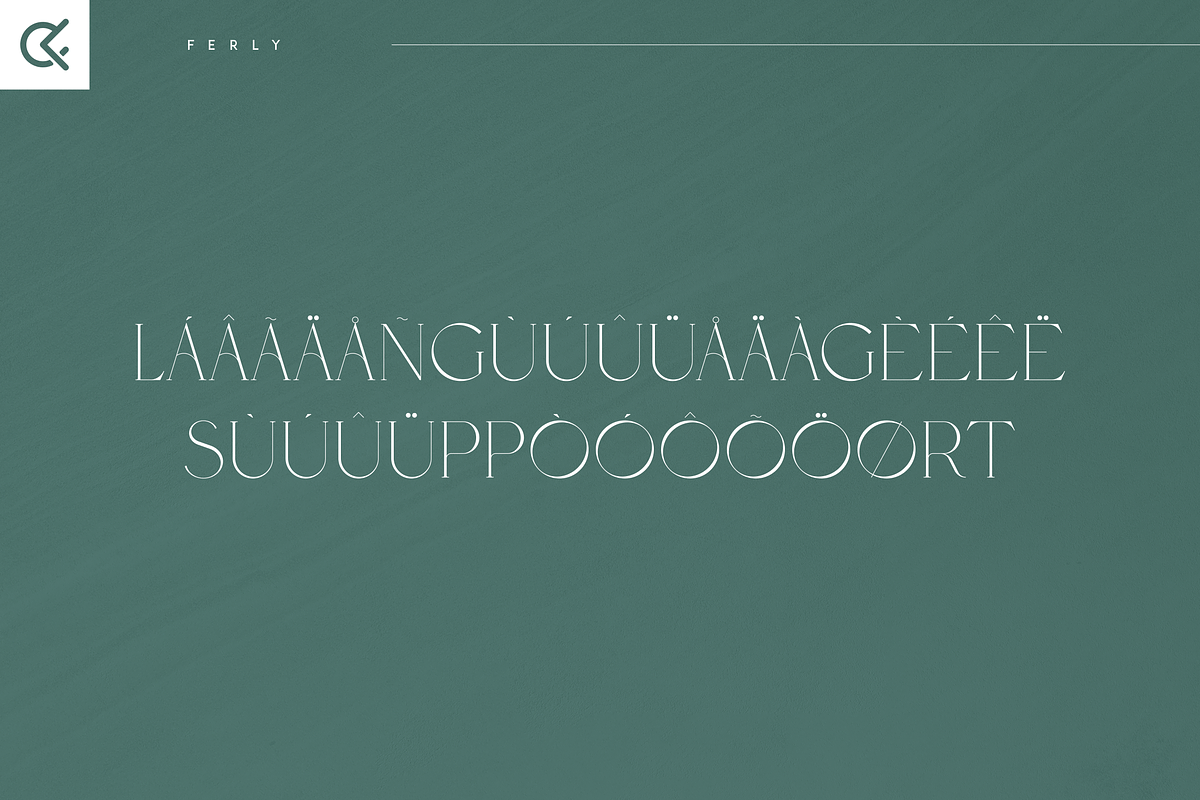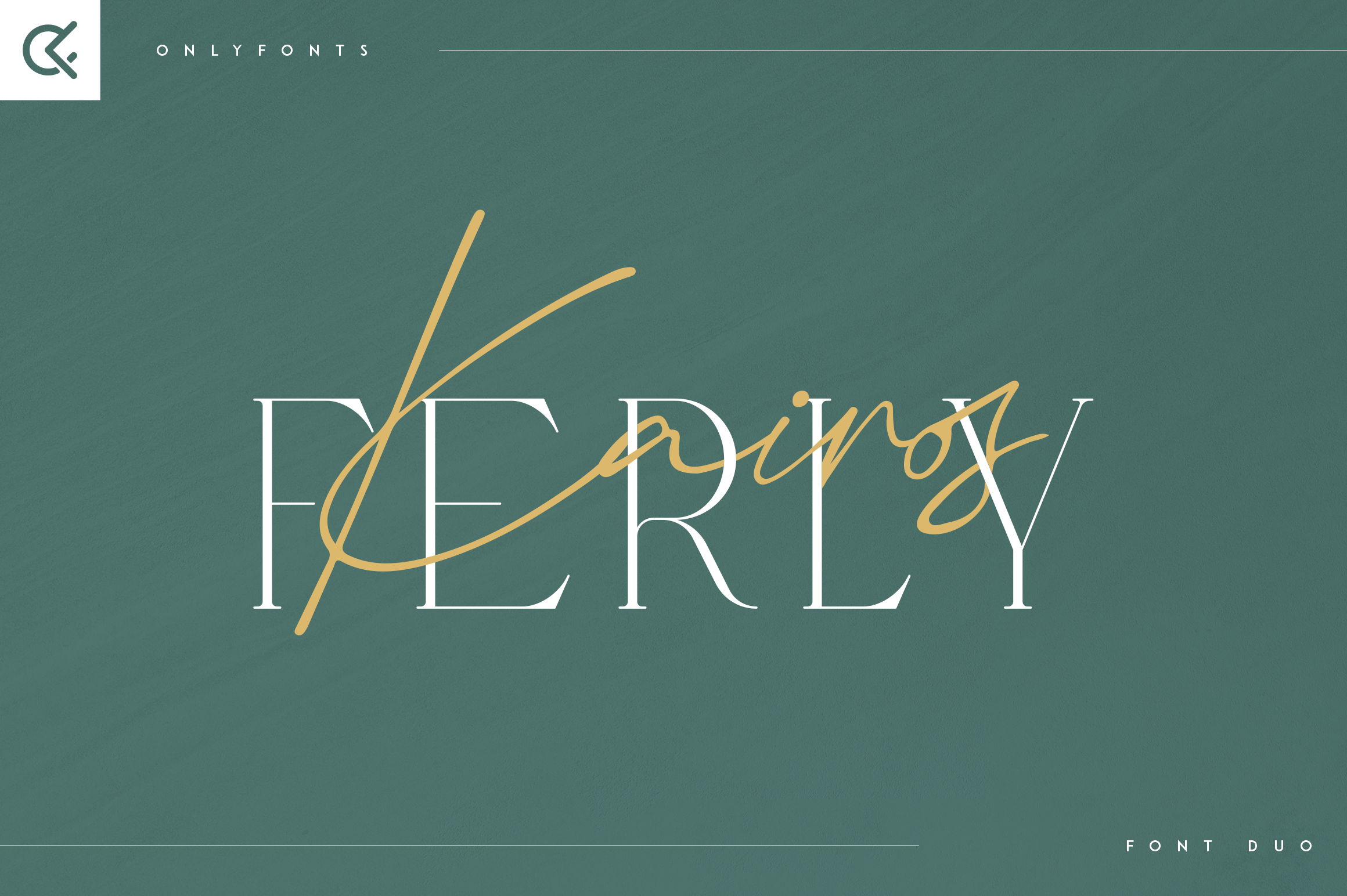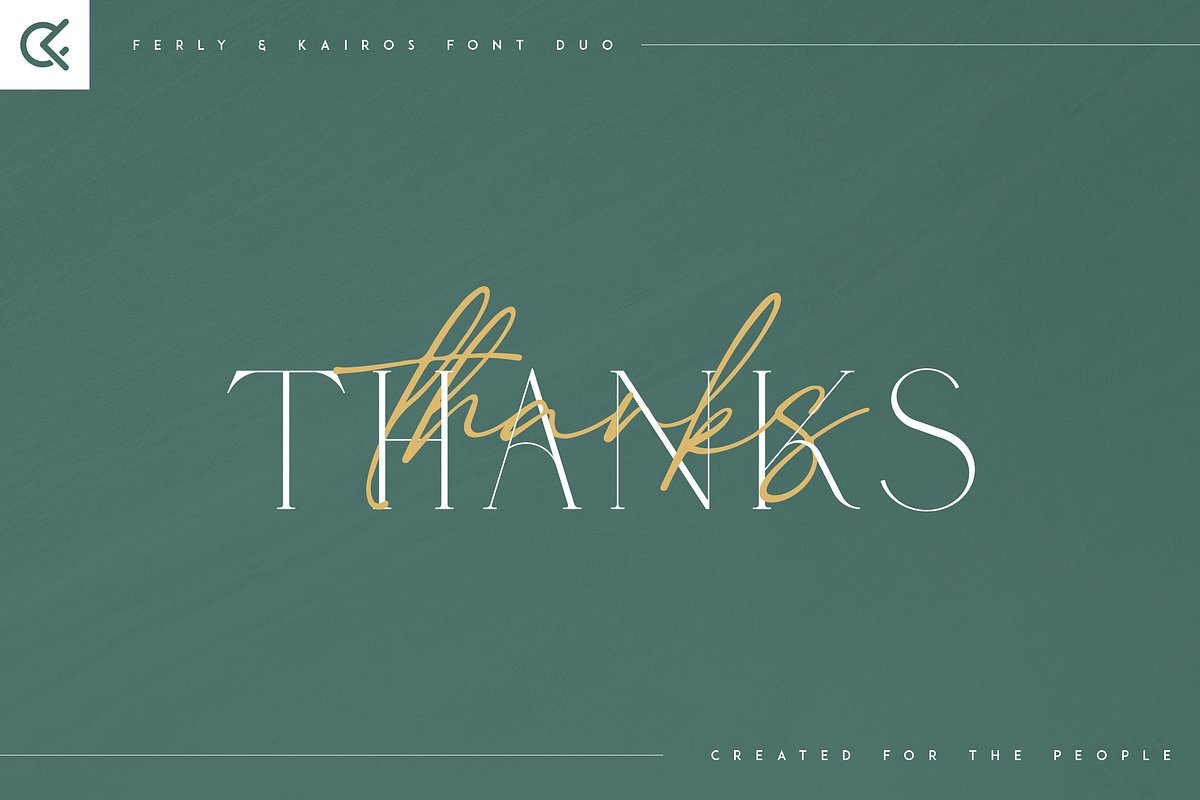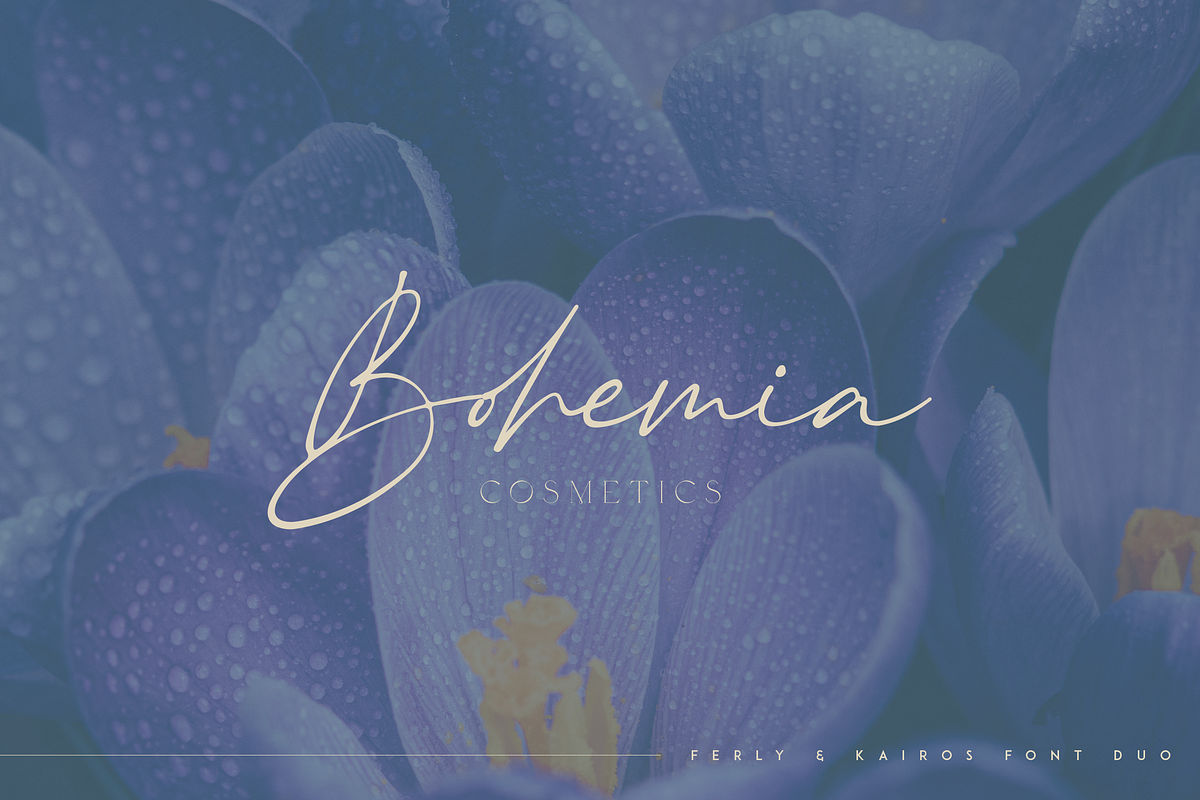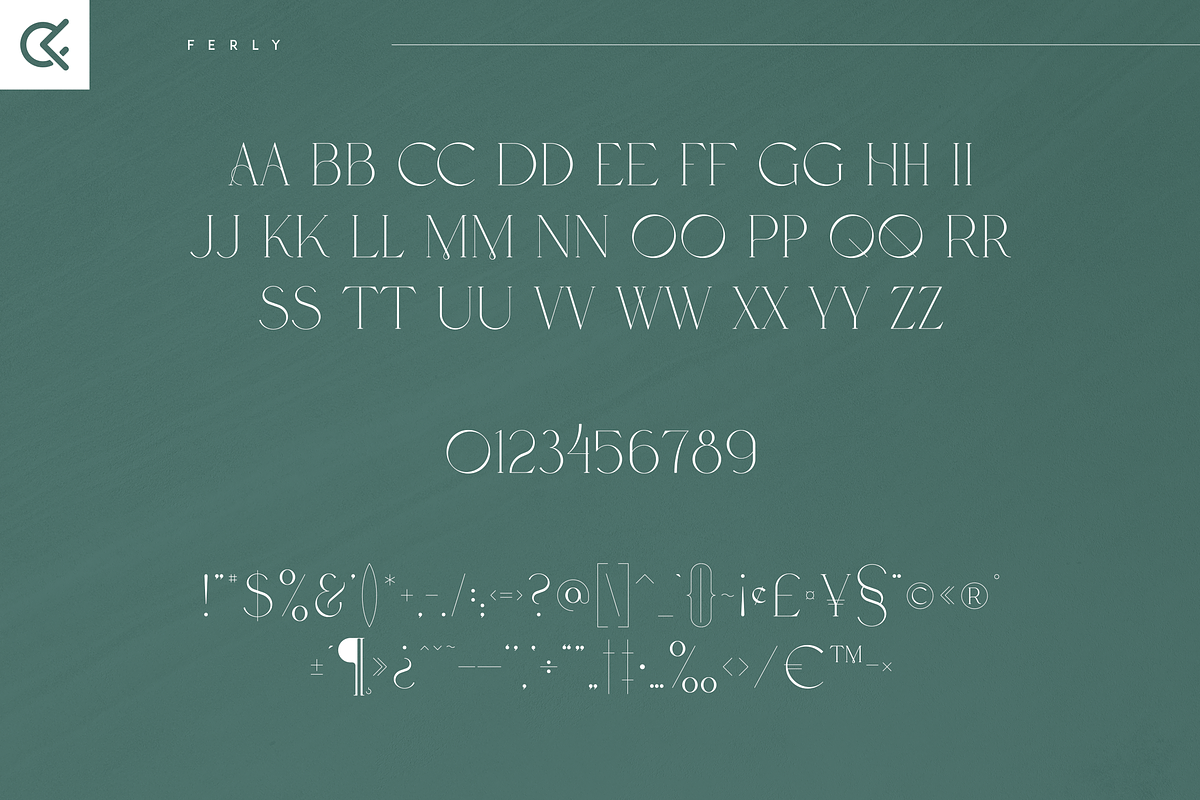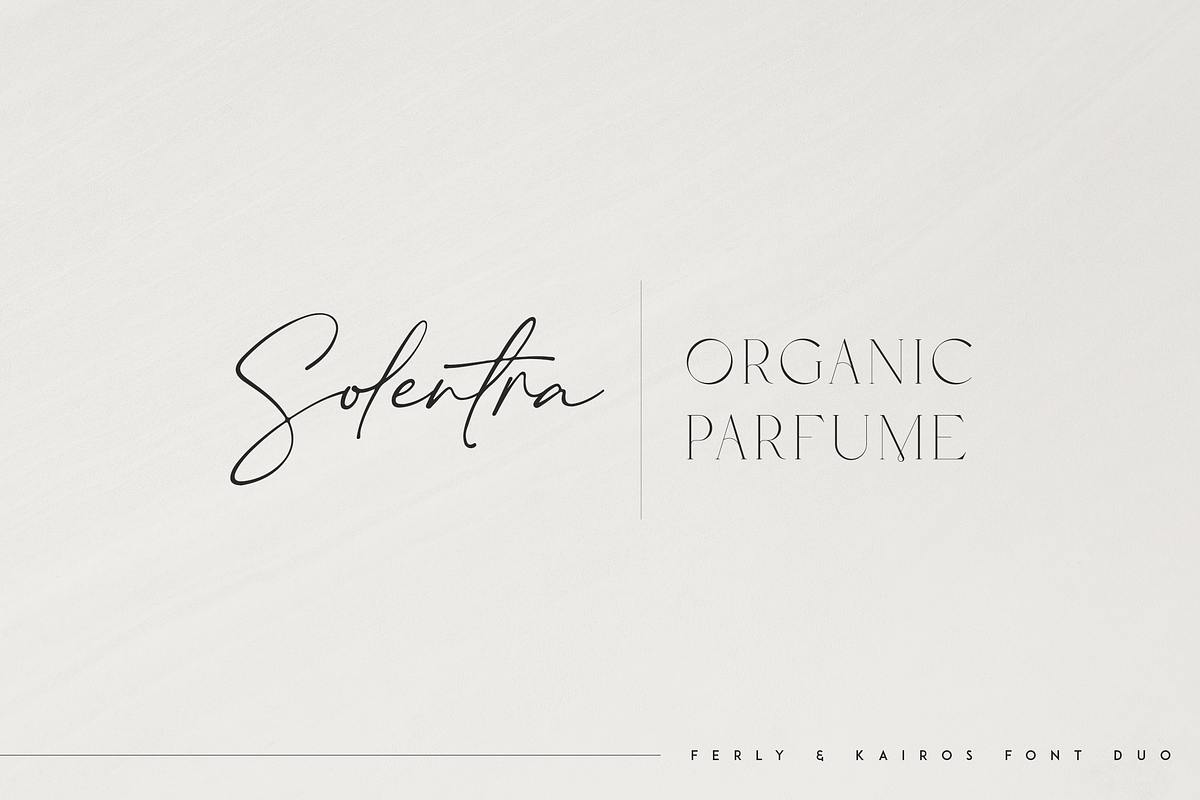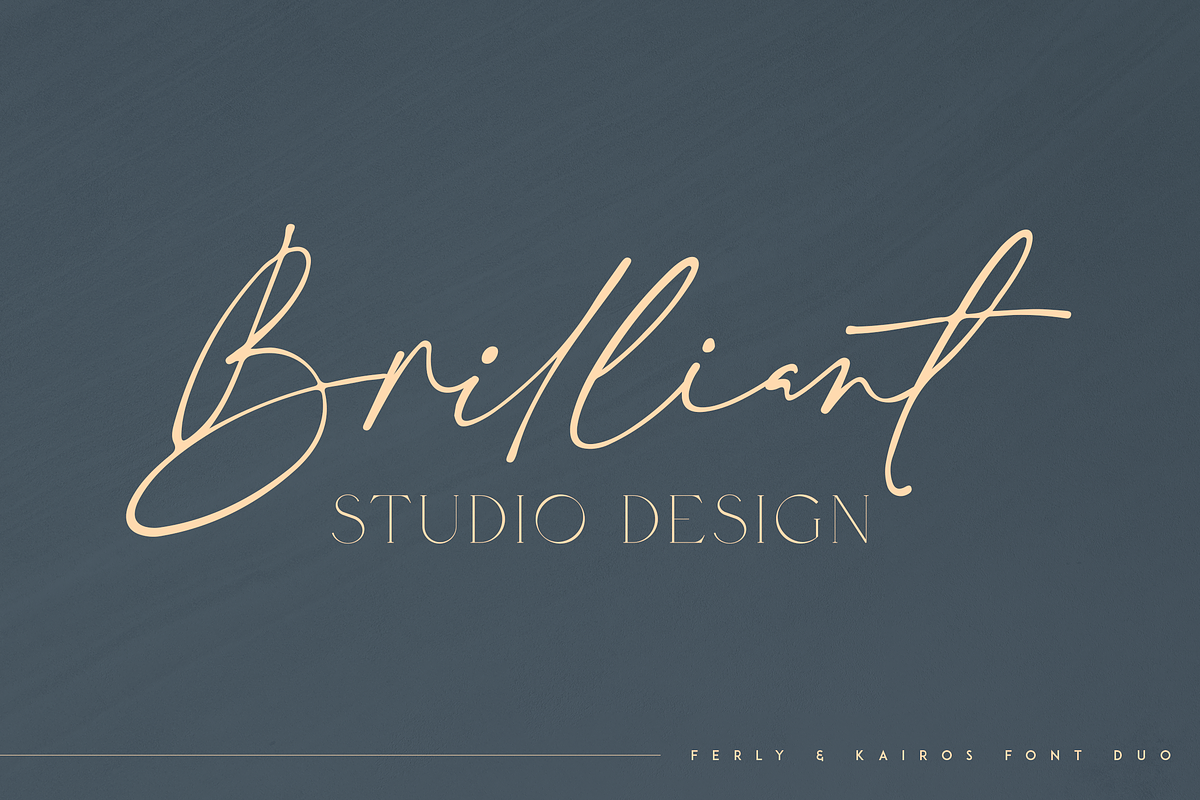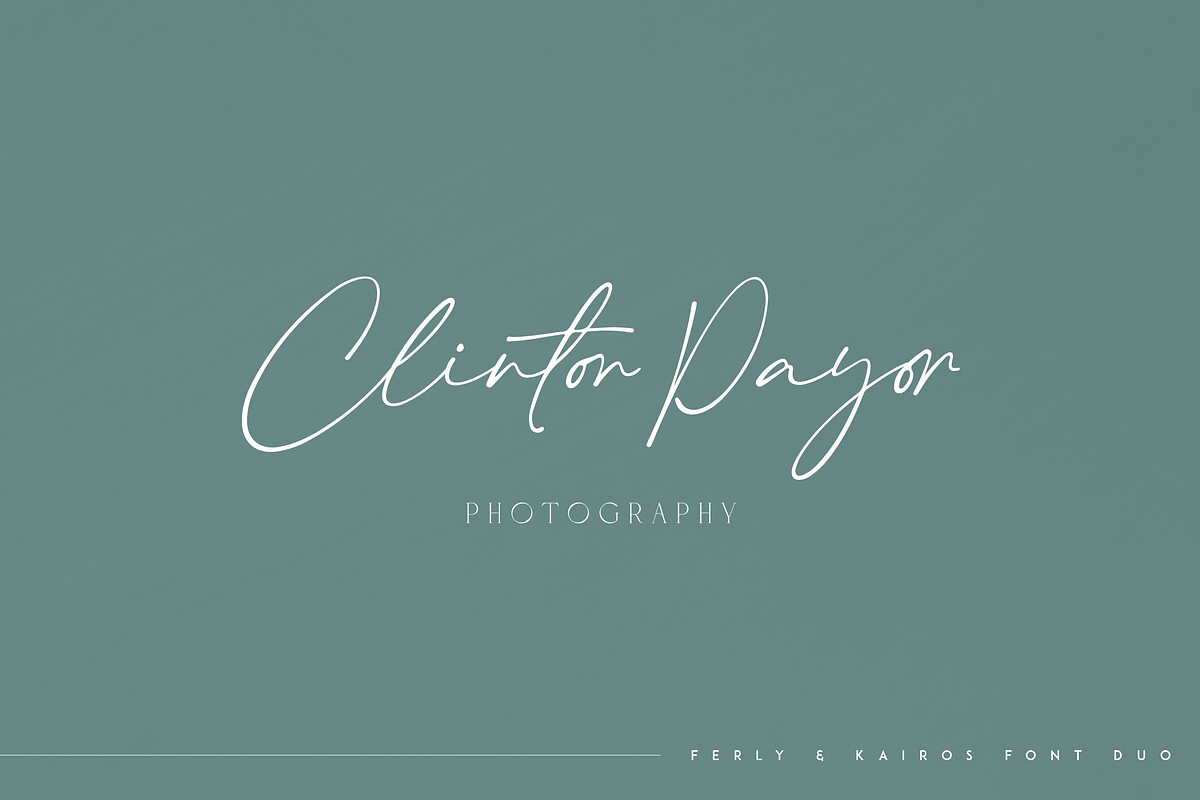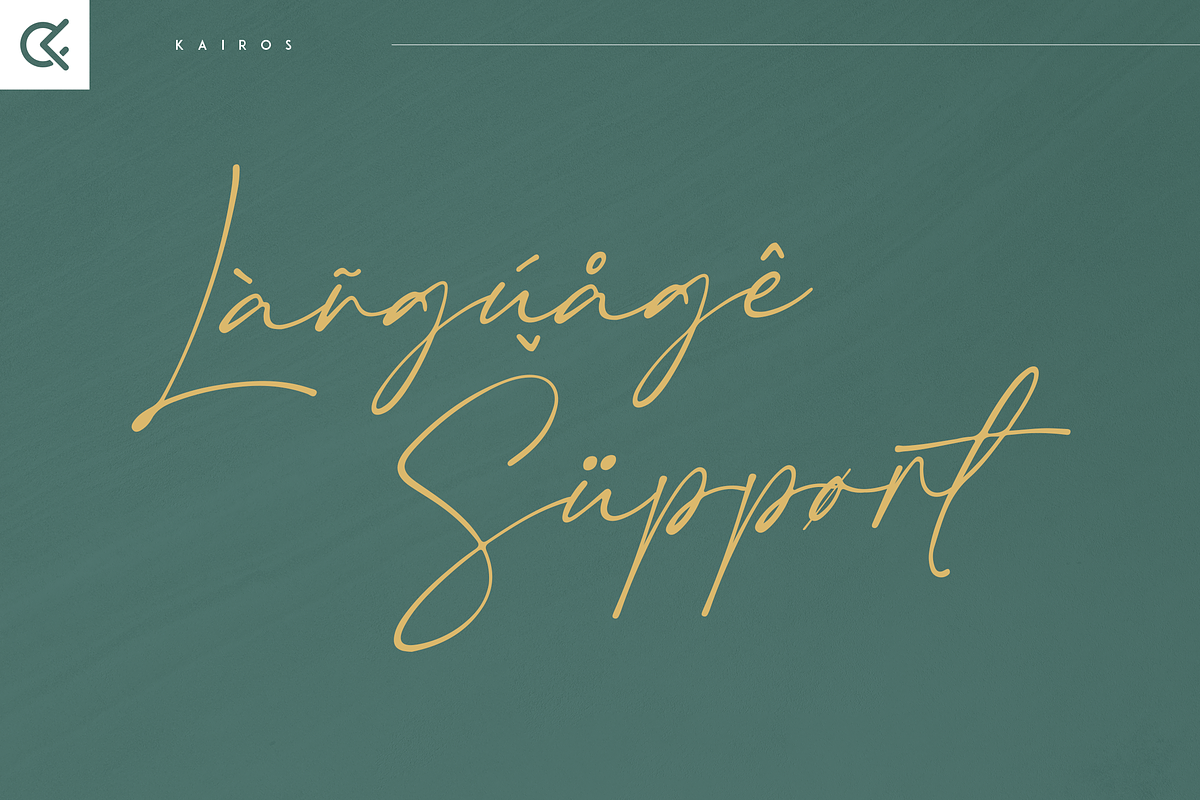
Ferly & Kairos font duo
Introducing Ferly & Kairos font duo
This font duo is luxury and fragile with multilingual support. It's a very versatile font that works great in large and small sizes.
This font is perfect for branding projects, home-ware designs, product packaging, magazine headers - or simply as a stylish text overlay to any background image.
- Uppercase, numeral, punctuation & Symbol
- serif
- handwritten script